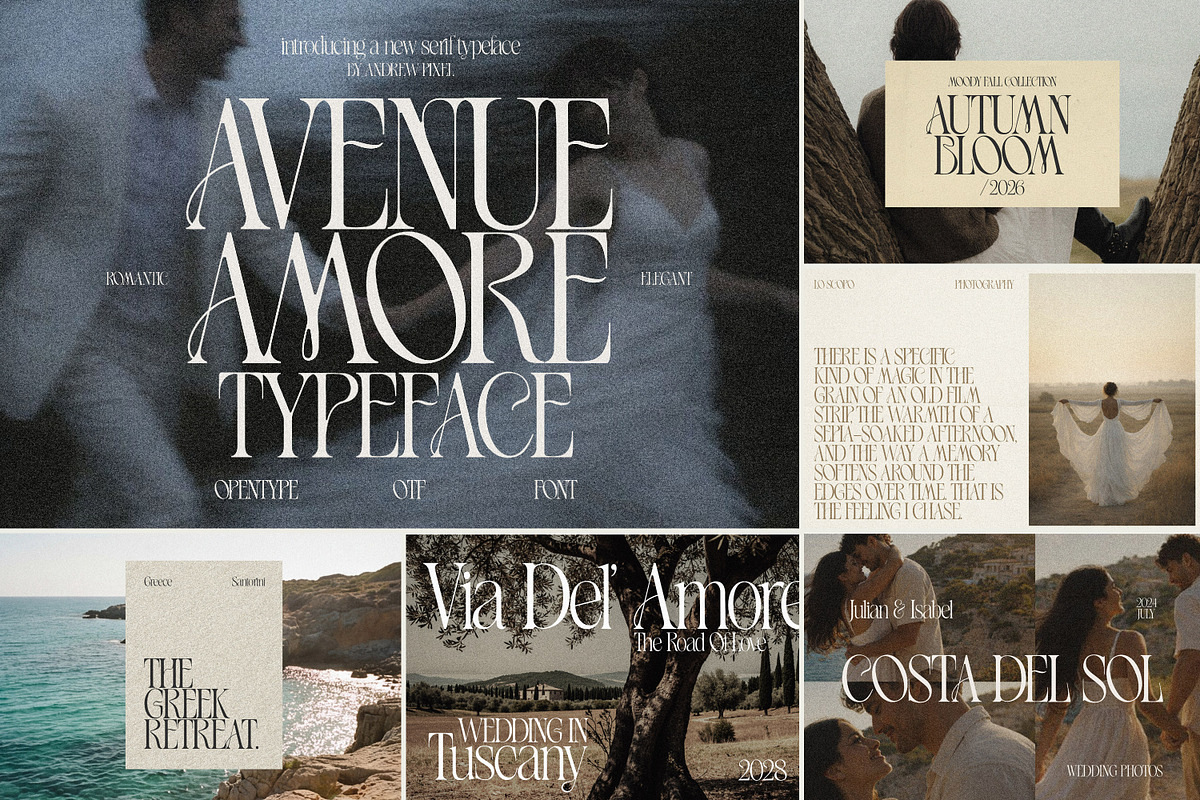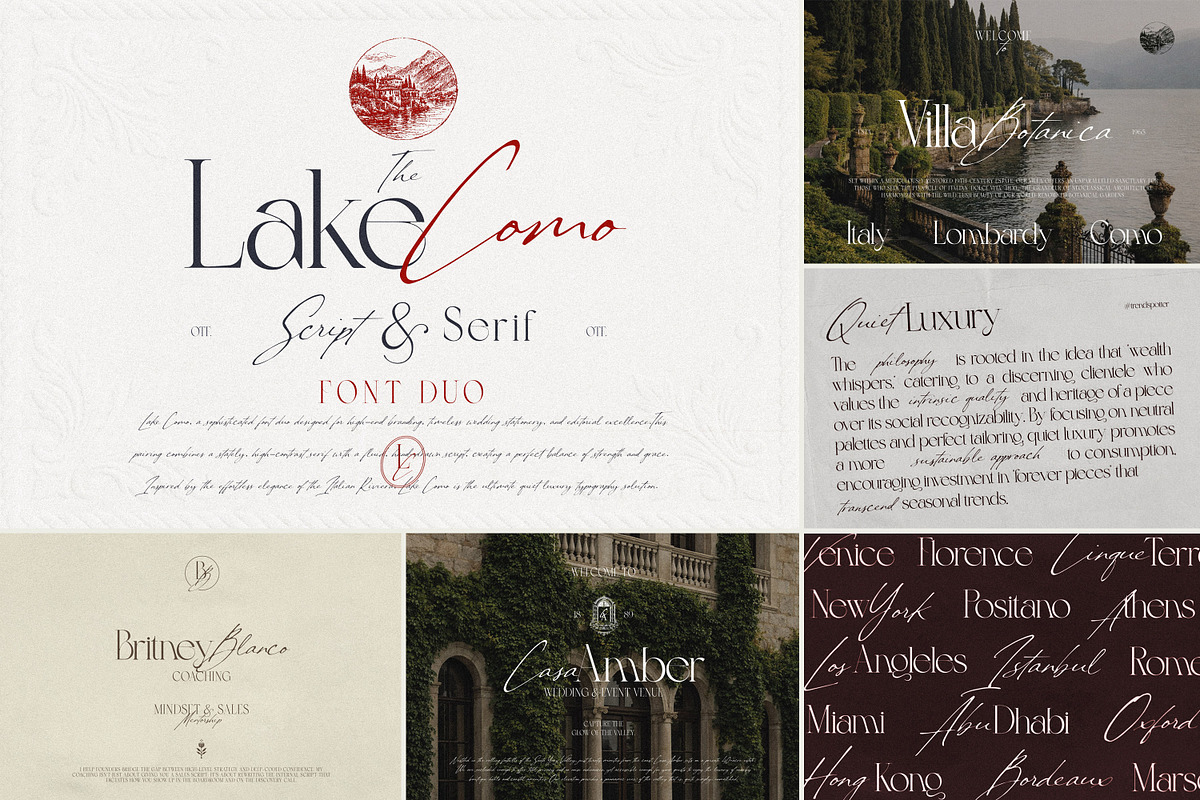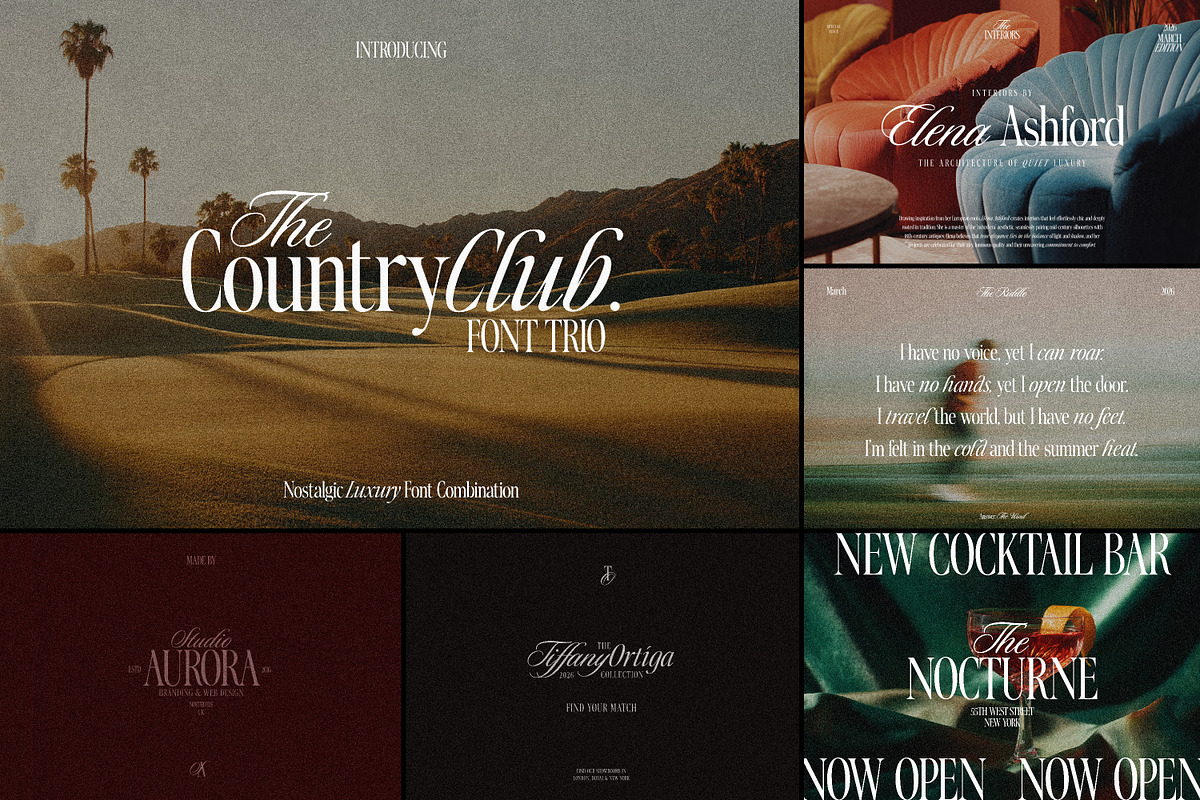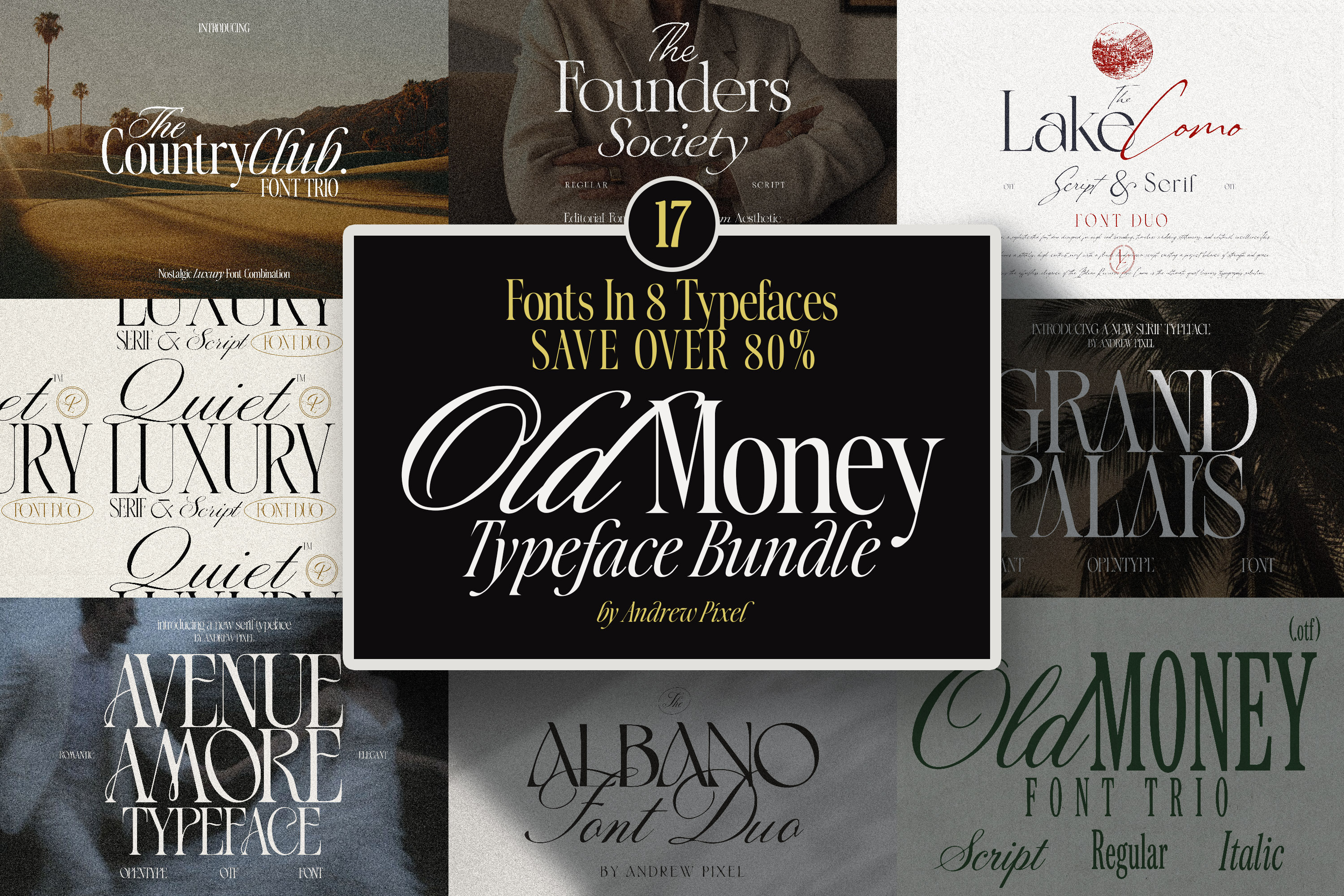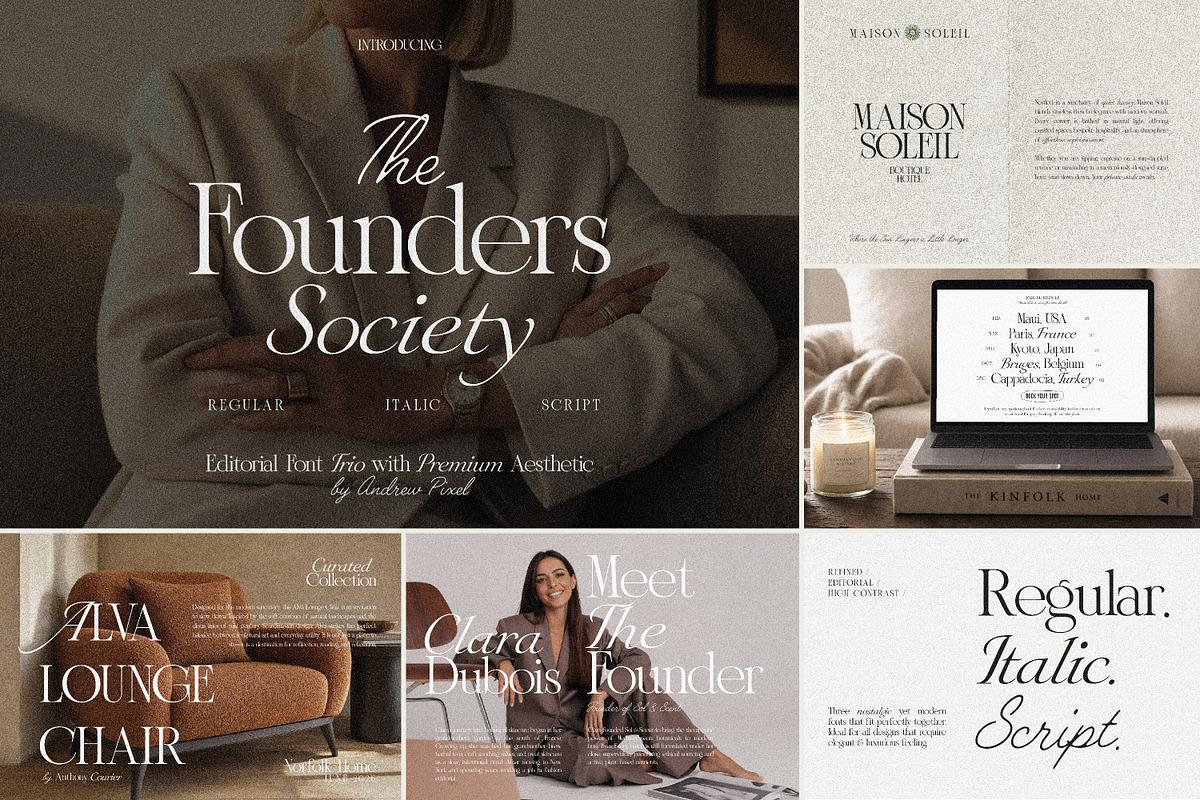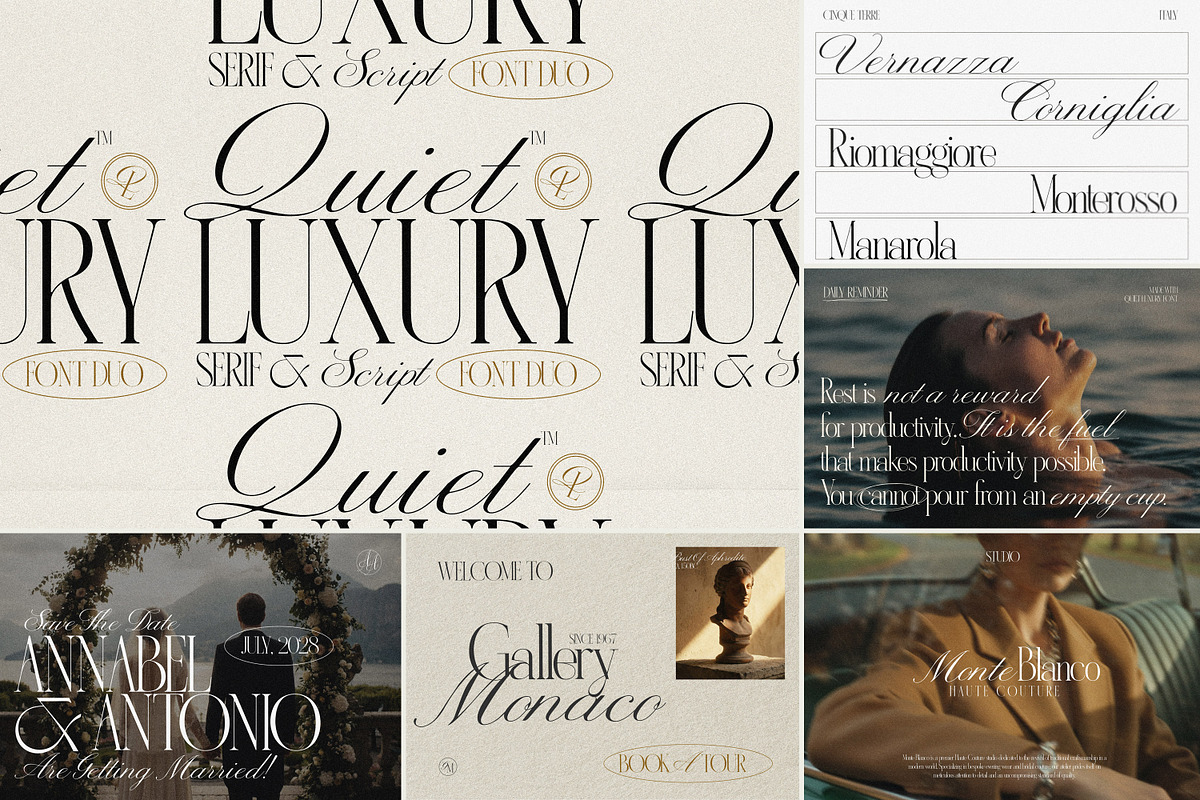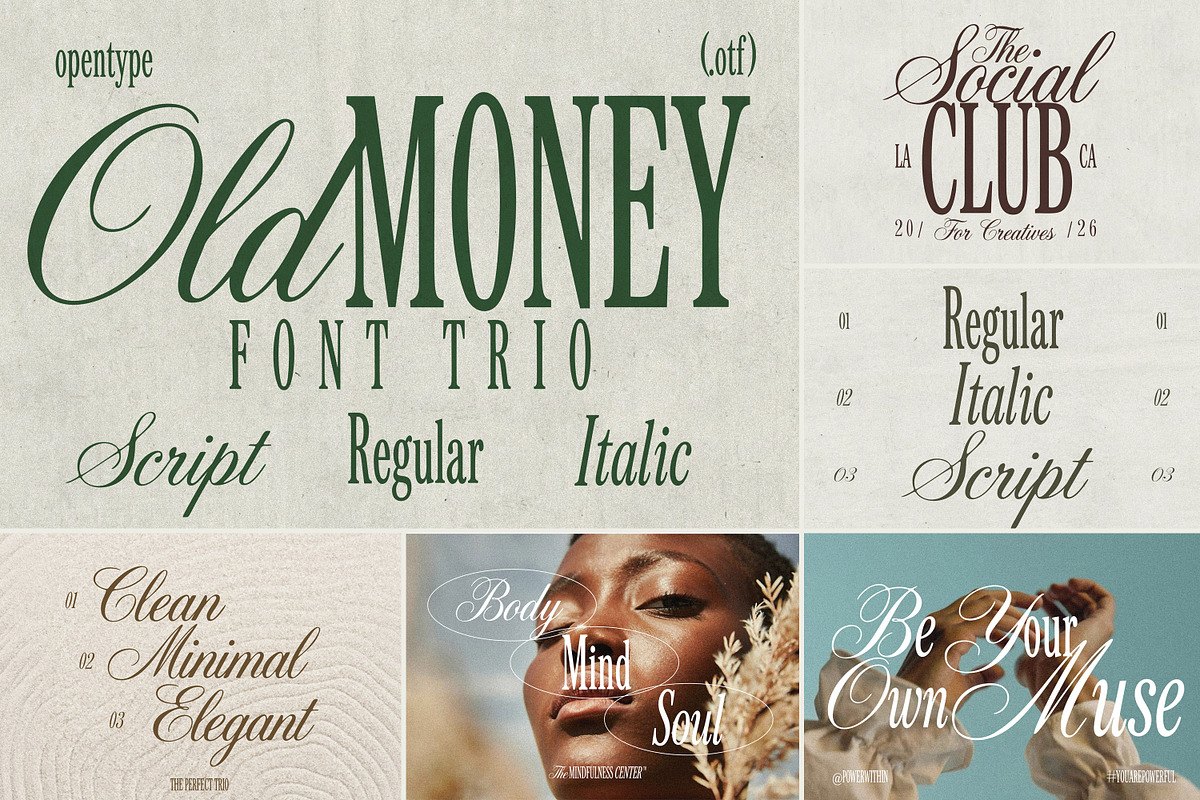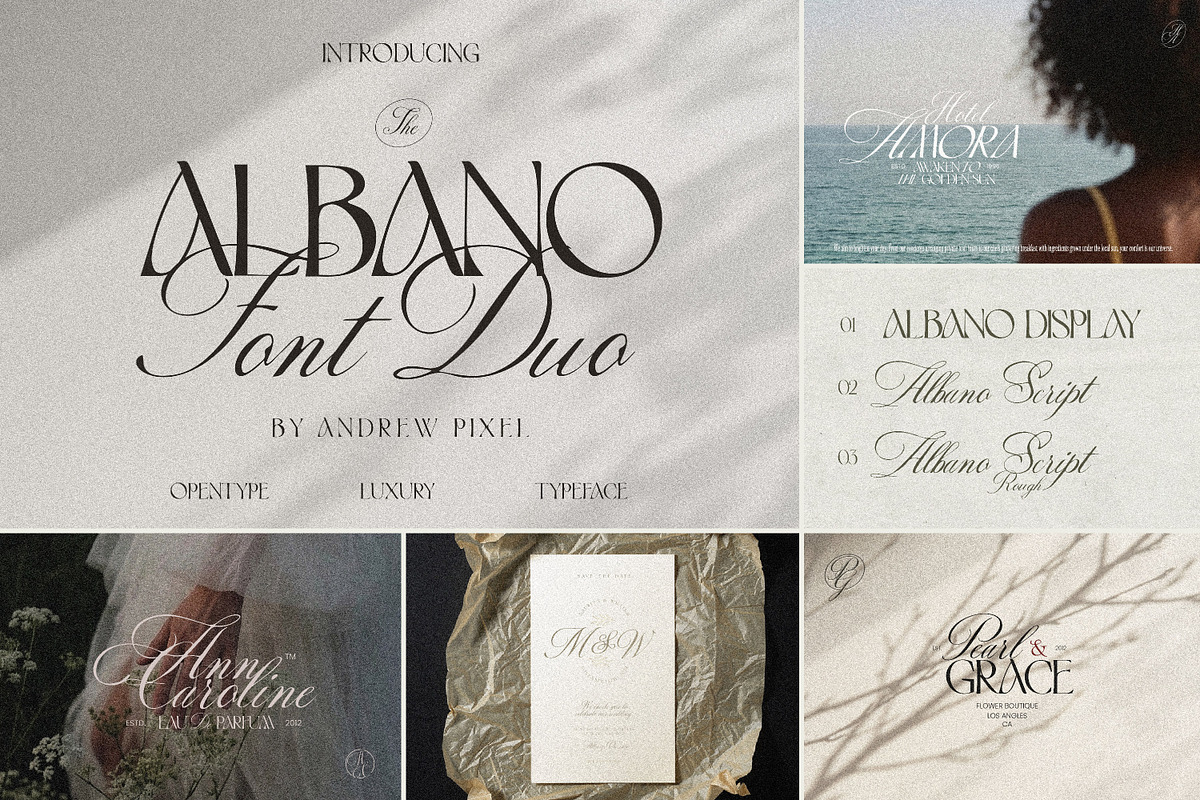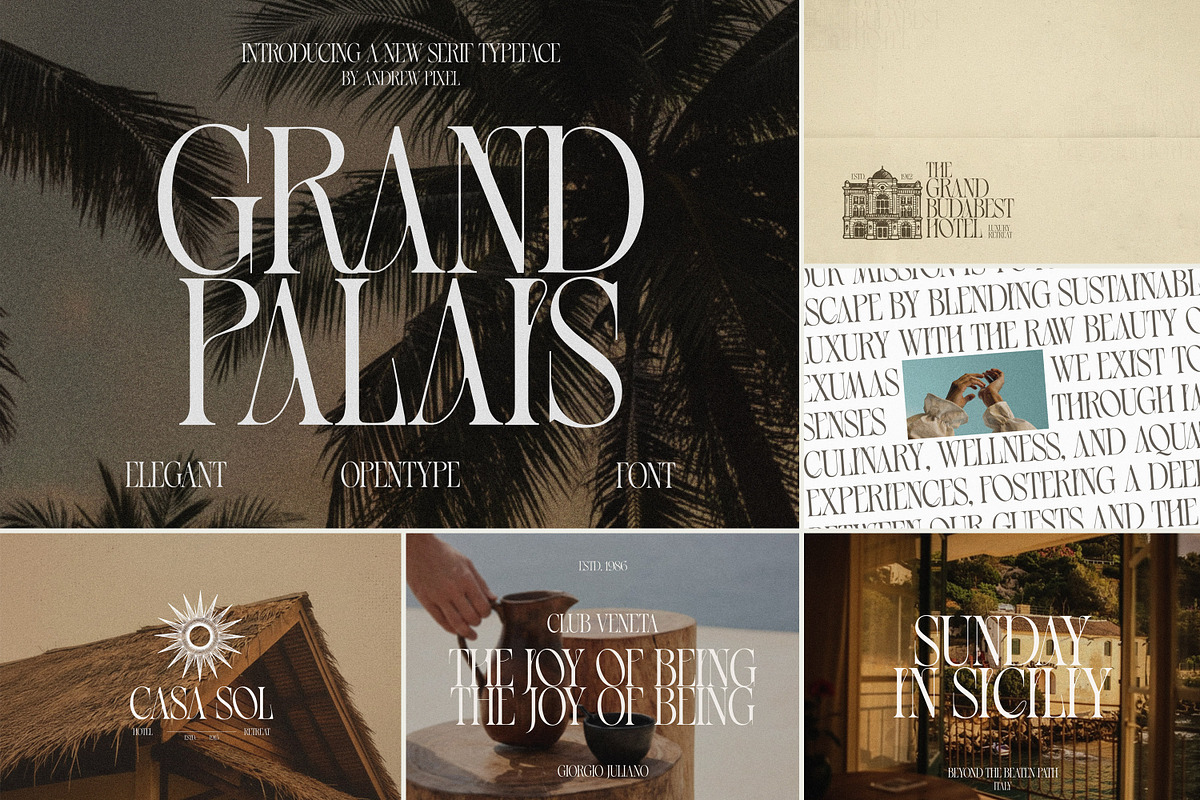
Old Money Font Bundle
If you’ve been absolutely obsessed with the "quiet luxury" and "old money" aesthetic lately, this bundle was made exactly for you.
Think vintage sports cars, summers at Lake Como, crisp white tennis skirts at the country club, and high-end editorial magazines. These fonts are all about effortless elegance, nostalgia, and premium aesthetics. Whether you need a romantic, sweeping script or a bold, high-contrast serif, this bundle gives you that perfect balance of timeless wealth and modern grace.
Weddings & Events: Design breathtaking invitations, menus, and welcome signs that look incredibly expensive and bespoke.
Branding & Logos: Give your boutique business, jewelry brand, luxury real estate firm, or fashion line an instant "high-end" facelift.
Social Media: Create Pinterest-worthy quotes and Instagram graphics that perfectly capture that moody, vintage aesthetic.
Packaging & Editorial: Elevate your product labels, magazine layouts, and book covers to look like they belong in a designer boutique.
The Country Club (Font Trio) - Nostalgic, sporty luxury.
The Albano (Font Duo) - Classic, sharp, and refined.
Lake Como (Script & Serif Duo) - Romantic European summer vibes.
Quiet Luxury (Serif & Script Duo) - The ultimate understated elegance.
Grand Palais - A bold, statement-making serif.
Avenue Amore - A highly romantic and elegant serif.
The Founders Society (Regular, Italic, Script Trio) - Premium editorial aesthetic.
Old Money (Script, Regular, Italic Trio) - The namesake classic.